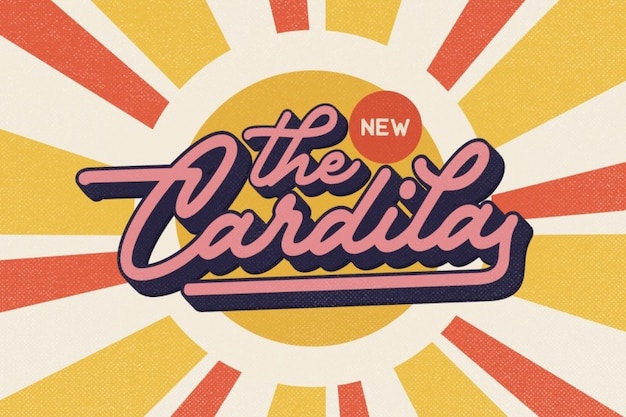
The Cardila
The Cardila Font
Hop up! We're going to the 1960s! Here at Freepik we are happy to present The Cardila font by the Letterhend Studio. Including a lot of alternate characters and both twirly and underlining ligatures for the rest of the words. It'll be perfect for logos, magazines, and posters. Start designing now!